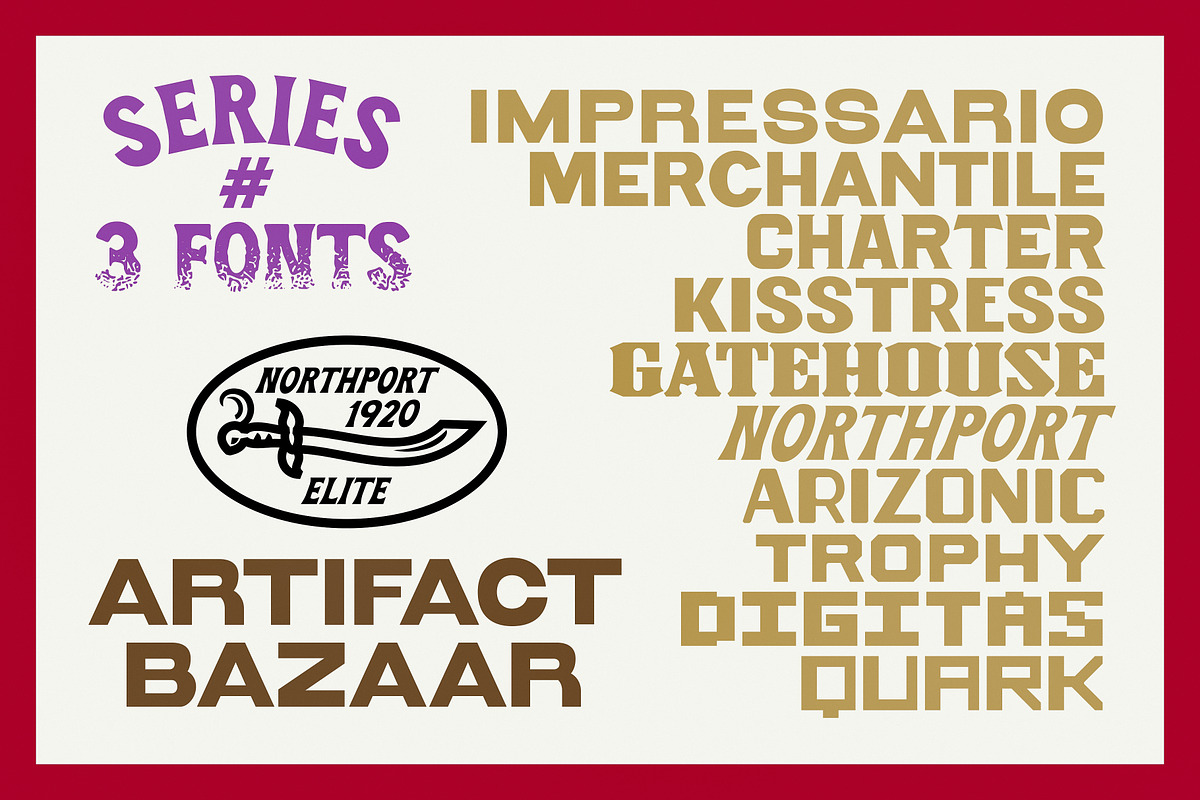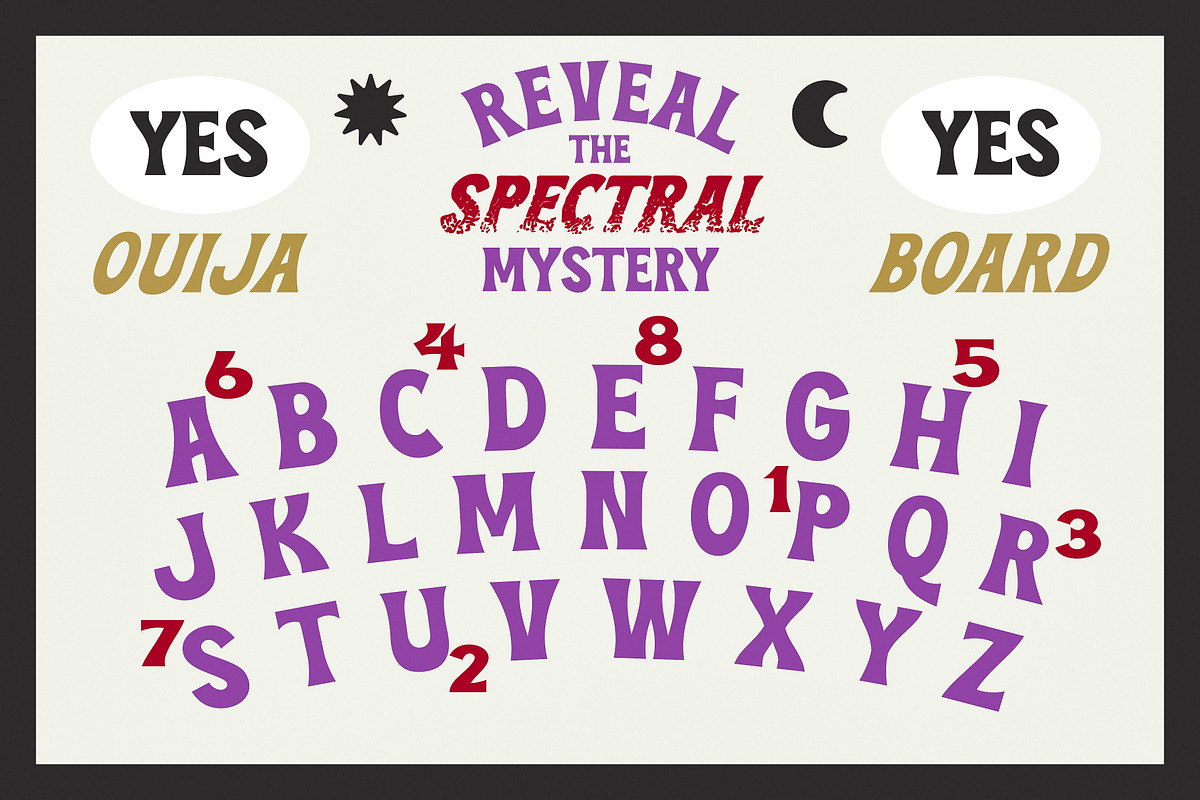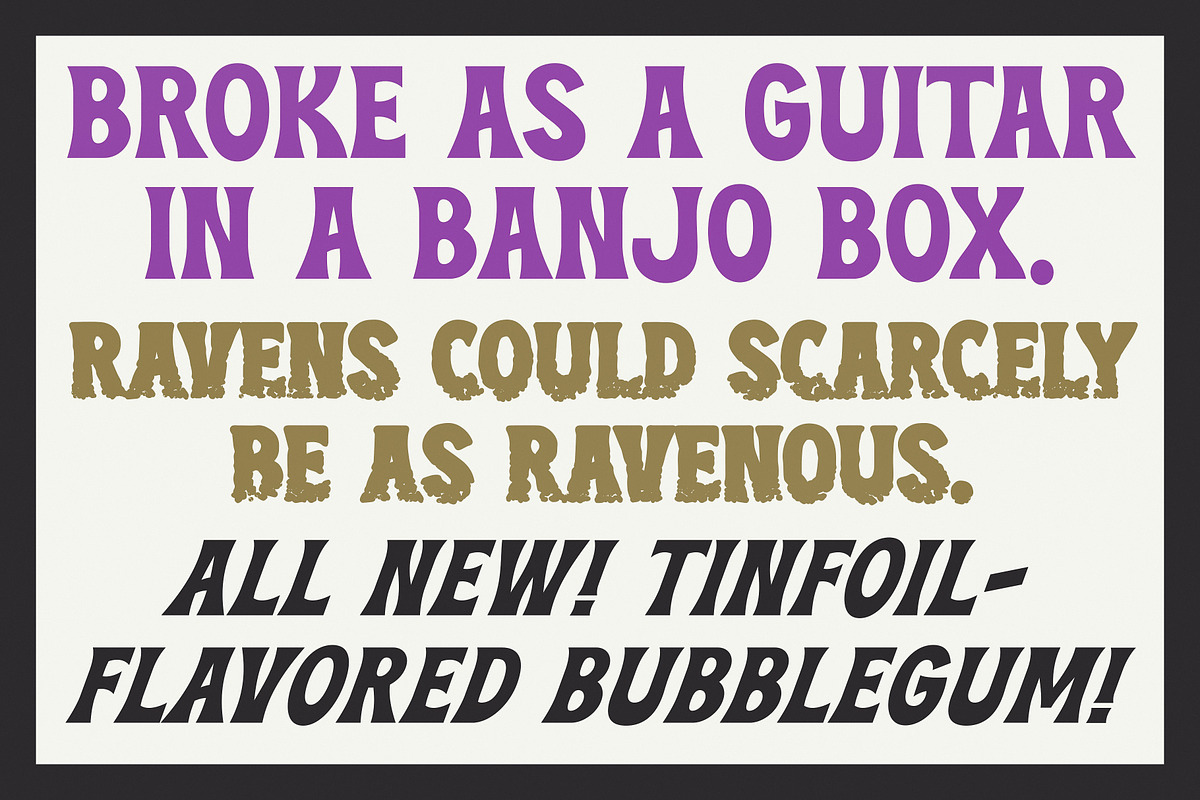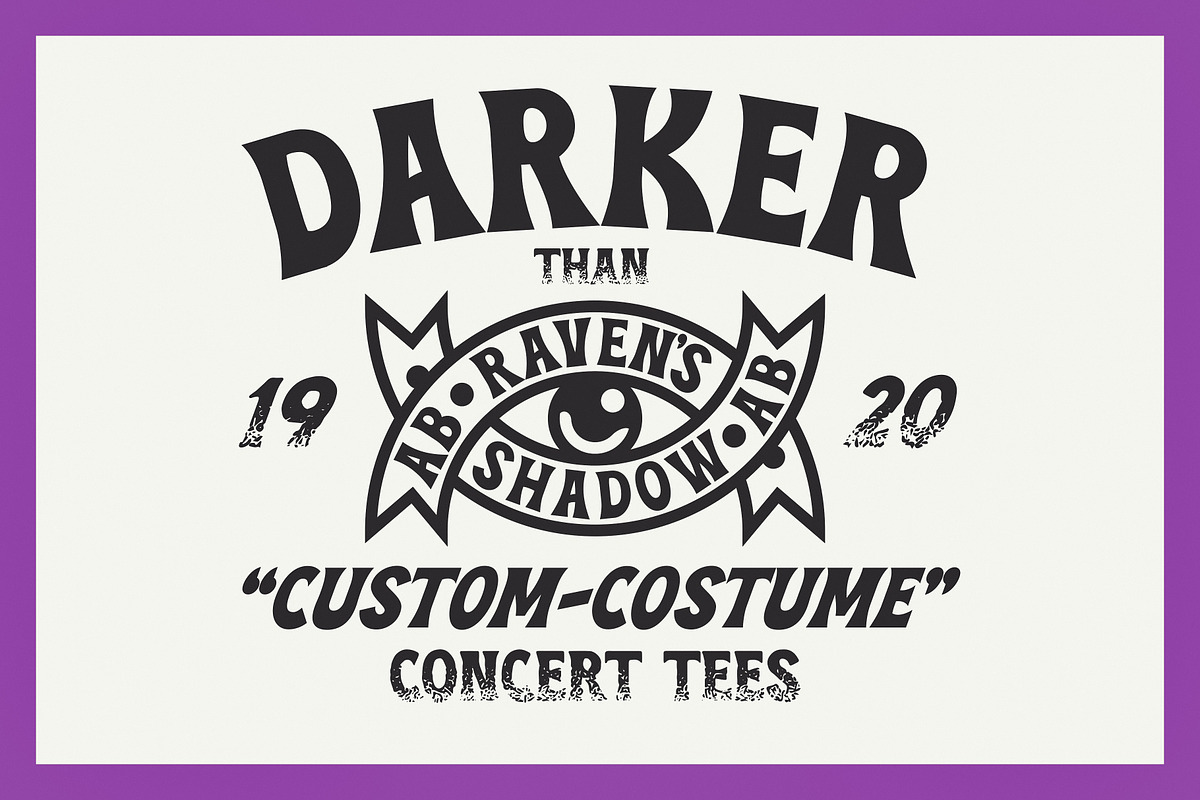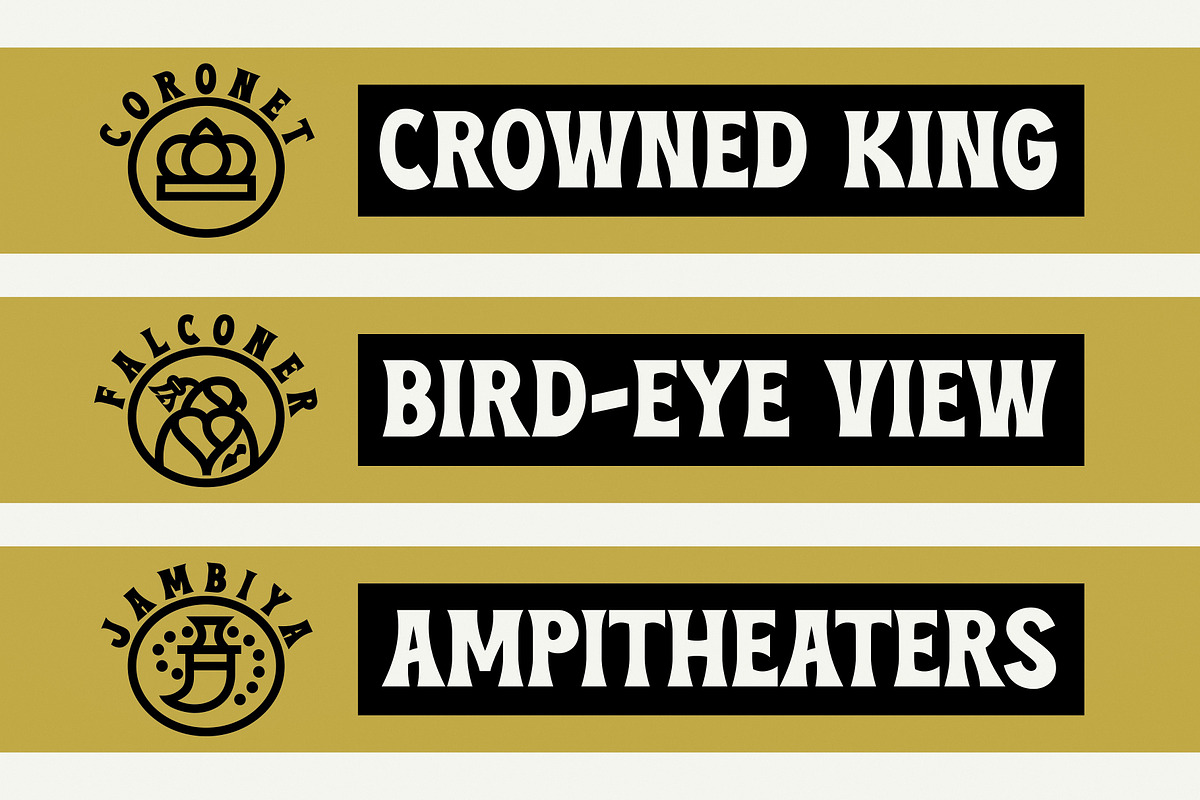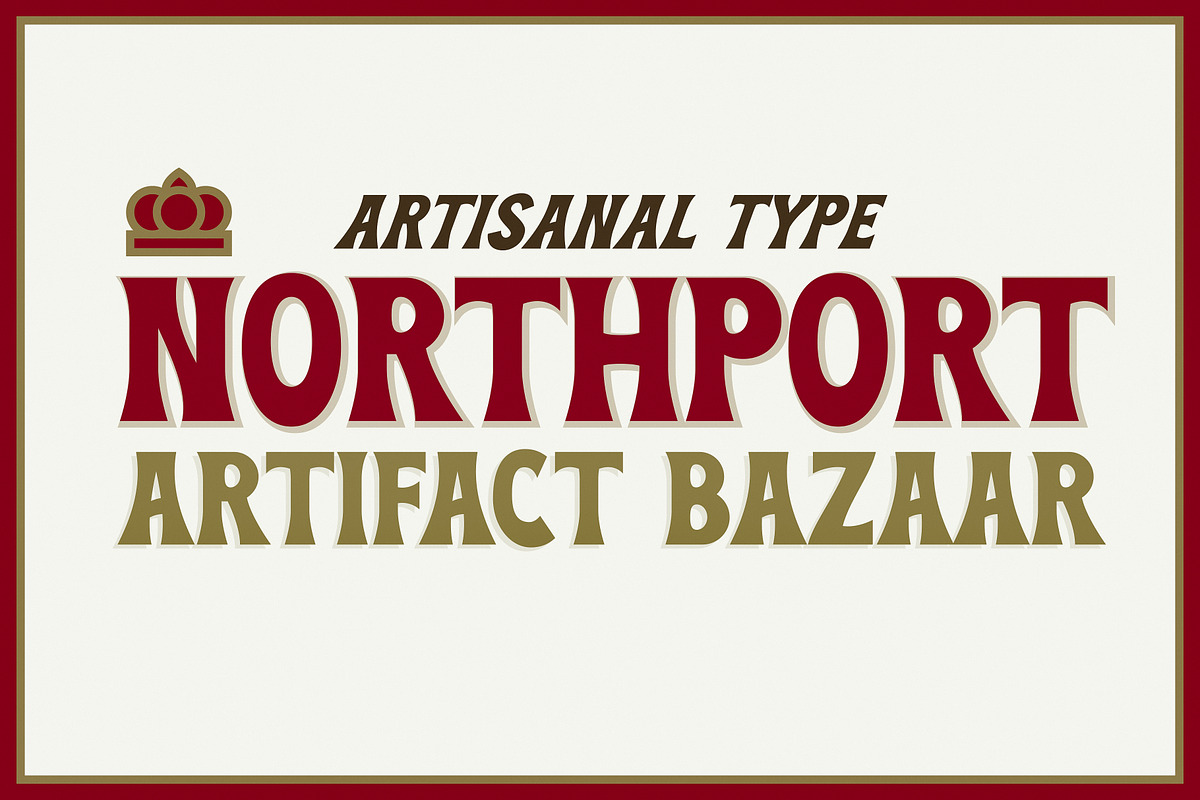
Northport | A Fun Flared Display
Northport belongs in everything, whether old traditional, vintage retro, or modern quirky. A quick favorite that rarely vacates its slot in the "recently used."
- 4 Styles: Regular, Regular Textured, Oblique, Oblique Textured
- Texture variations
- All punctuation and special characters